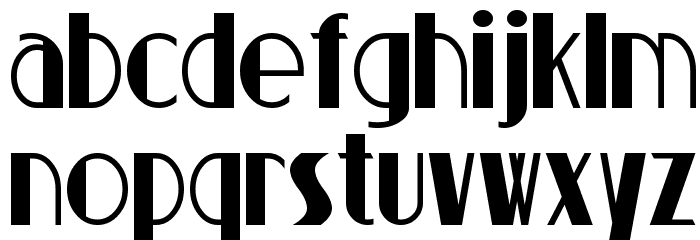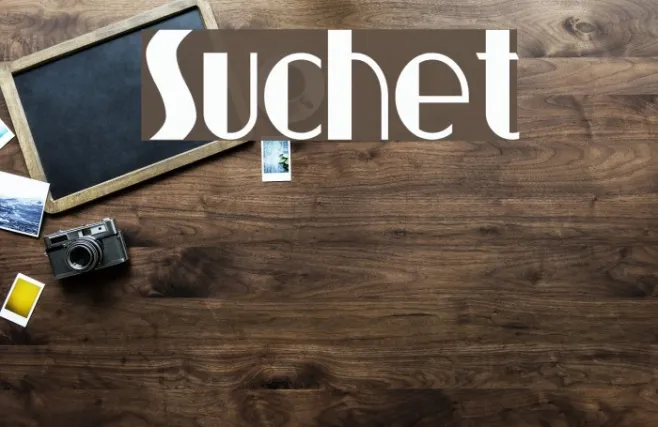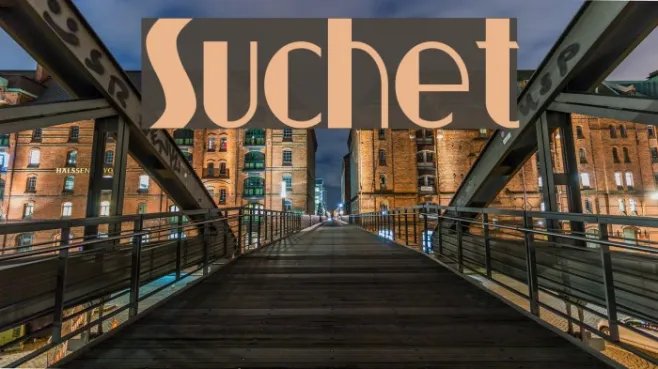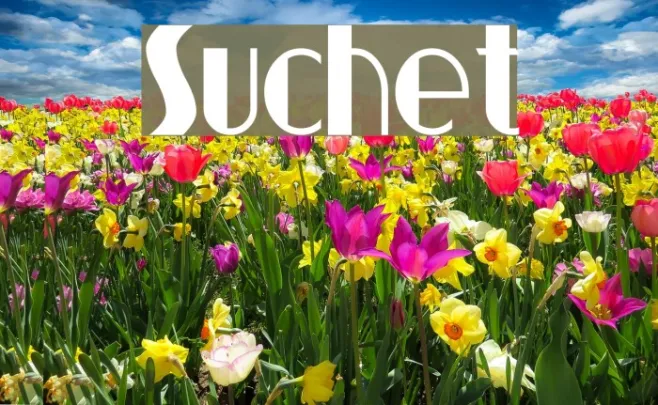
Suchet Font
This font features a bold and striking design with a modern flair. The uppercase letters are tall and narrow, with distinct geometric shapes that create a sense of elegance and sophistication. The lowercase letters maintain a consistent style, offering a seamless transition between characters. Numbers are equally bold, ensuring readability and impact. Special characters are creatively designed, adding a unique touch to the overall aesthetic. The font's high contrast in stroke thickness enhances its visual appeal, making it suitable for attention-grabbing headlines and logos.
A bold, modern font with high contrast and geometric shapes.
- Proposed Projects: Ideal for branding, advertising, posters, and editorial design projects.